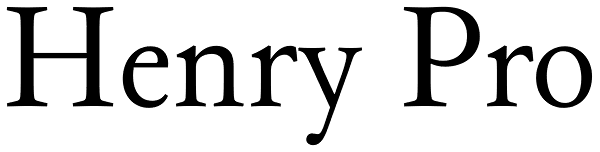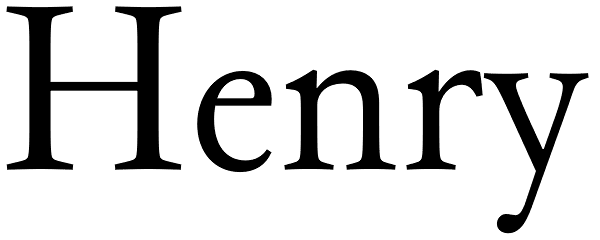
Henry
Henry is a personal reinterpretation of the Garamond cut for the Deberny & Peignot type foundry between 1914 and 1926 by Henri Parmentier, under the management of Georges Peignot, who owned the foundry. Their purpose was to recreate the gracefulness...